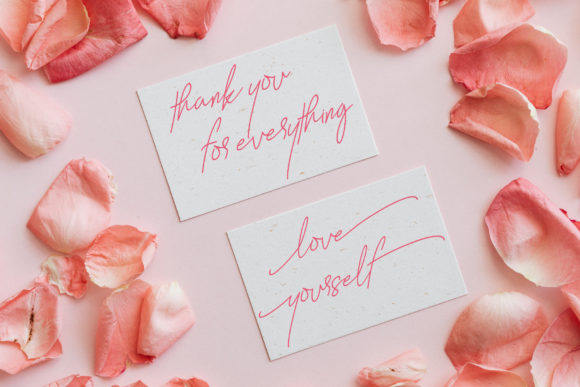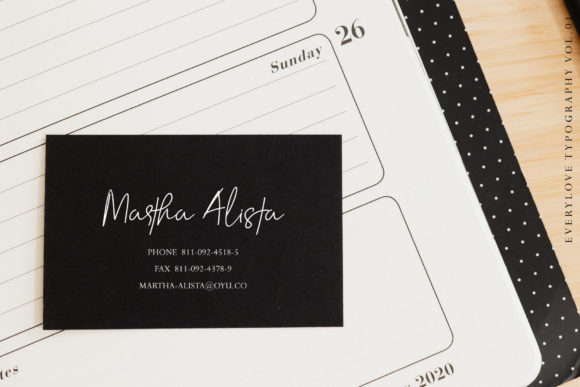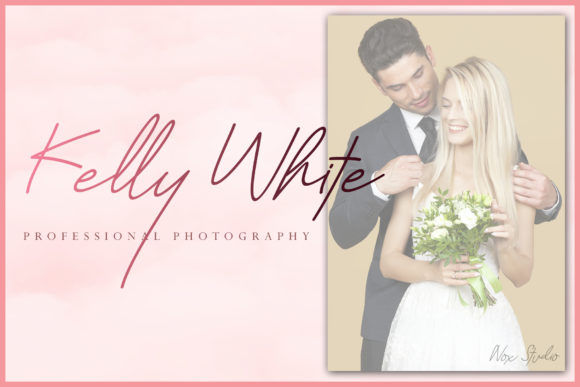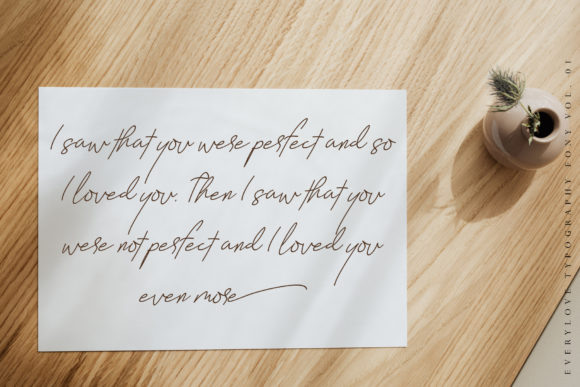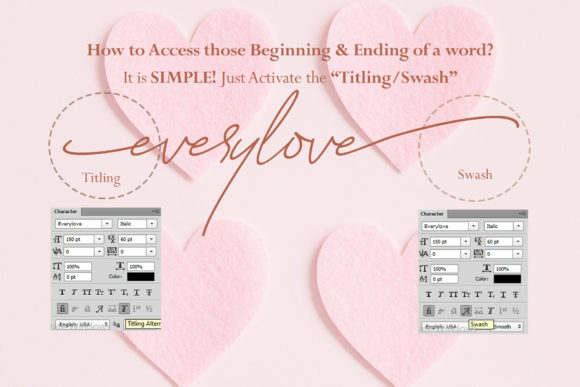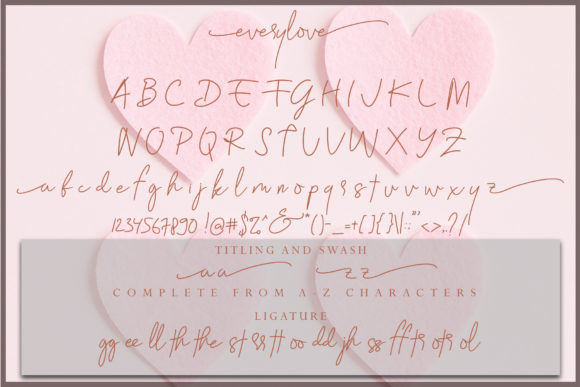
Introducing Everylove Font: The Ultimate Handwritten Font for Designers and Crafters
Are you tired of using the same old fonts for your designs? Do you want to add a touch of elegance and sophistication to your branding, logos, and quotes? Look no further than Everylove Font, a dazzling and timeless handwritten font that’s perfect for designers and crafters alike.
What Makes Everylove Font So Special?
Everylove Font is a beautifully crafted handwritten font that’s designed to make your designs stand out. With its elegant and flowing lines, this font is perfect for creating eye-catching logos, branding, and quotes that will leave a lasting impression on your audience.
One of the best things about Everylove Font is its versatility. Whether you’re designing a logo, a brochure, or a social media post, this font can be used in a variety of contexts to add a touch of sophistication and elegance.
Everylove Font is PUA (Private Use Area) encoded, which means that you can access all of the glyphs and swashes with ease. This makes it easy to customize your designs and add your own personal touch.
With PUA encoding, you can access a wide range of glyphs and swashes, including:
- Alternate characters: Switch up your design with alternate characters that add a touch of uniqueness.
- Swashes: Add a touch of elegance with swashes that flow beautifully across your design.
- Ligatures: Combine characters to create a more natural and fluid design.
Everylove Font is perfect for designers and crafters who want to add a touch of elegance and sophistication to their designs. Whether you’re creating:
- Logos: Create a lasting impression with a logo that’s both elegant and eye-catching.
- Branding: Develop a consistent brand identity with a font that’s both versatile and sophisticated.
- Quotes: Add a touch of inspiration and motivation with quotes that are beautifully designed.
Why Choose Everylove Font?
There are many fonts to choose from, but Everylove Font stands out from the rest. Here are just a few reasons why:
- Unique and elegant design: Everylove Font is a one-of-a-kind font that’s both elegant and sophisticated.
- Versatile: Use Everylove Font in a variety of contexts, from logos to social media posts.
- PUA encoded: Access all of the glyphs and swashes with ease, making it easy to customize your designs.
Everylove Font is a must-have for designers and crafters who want to add a touch of elegance and sophistication to their designs. With its unique and elegant design, versatility, and PUA encoding, this font is perfect for creating eye-catching logos, branding, and quotes.